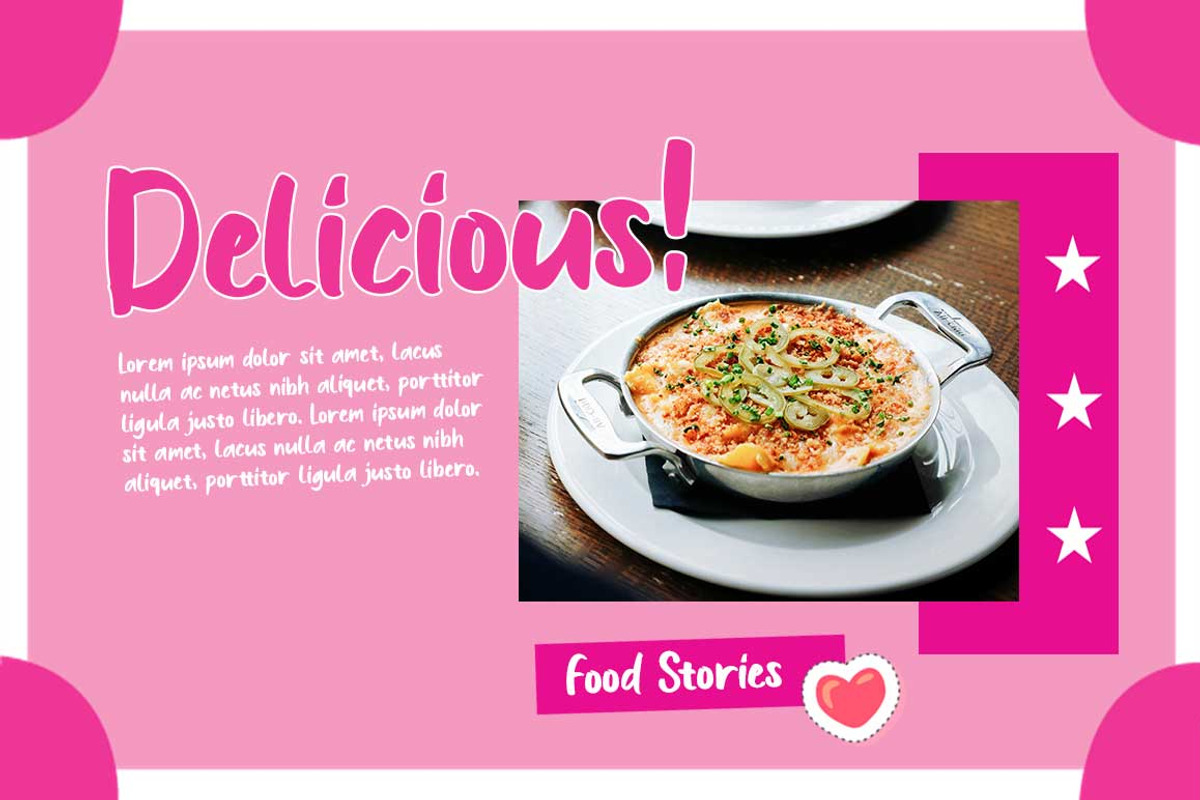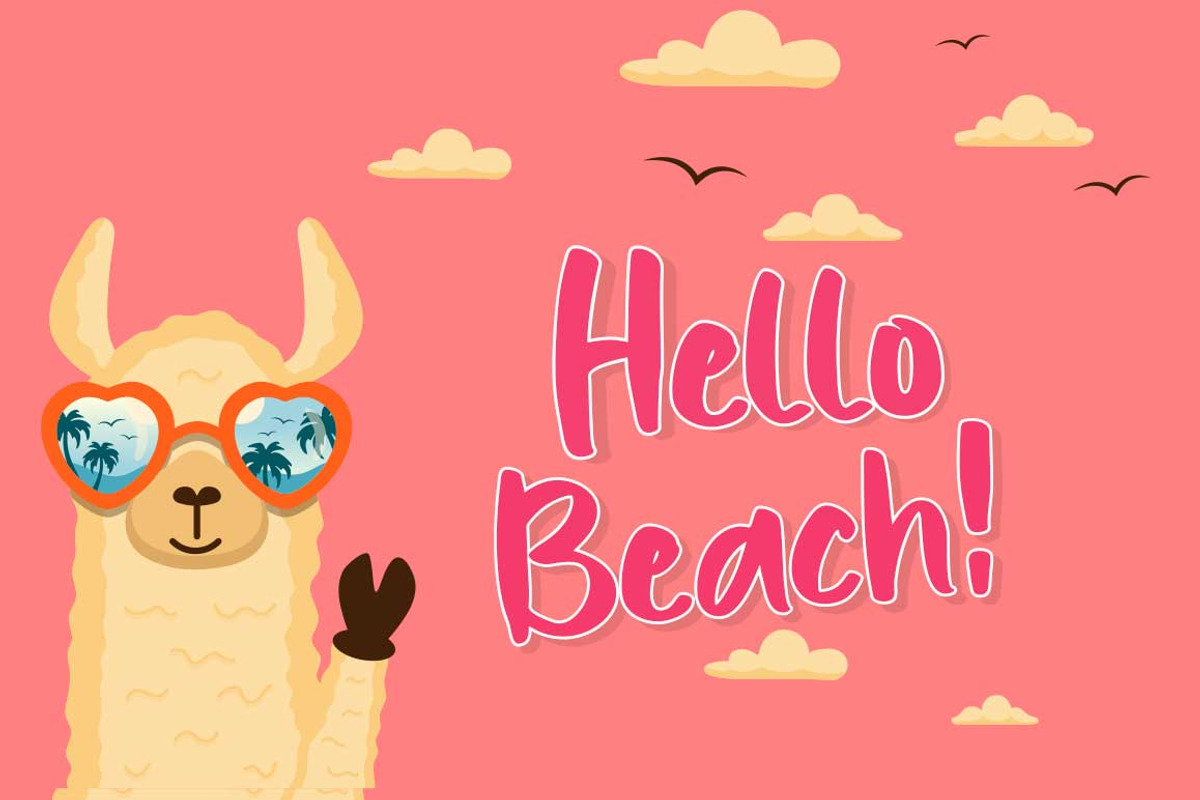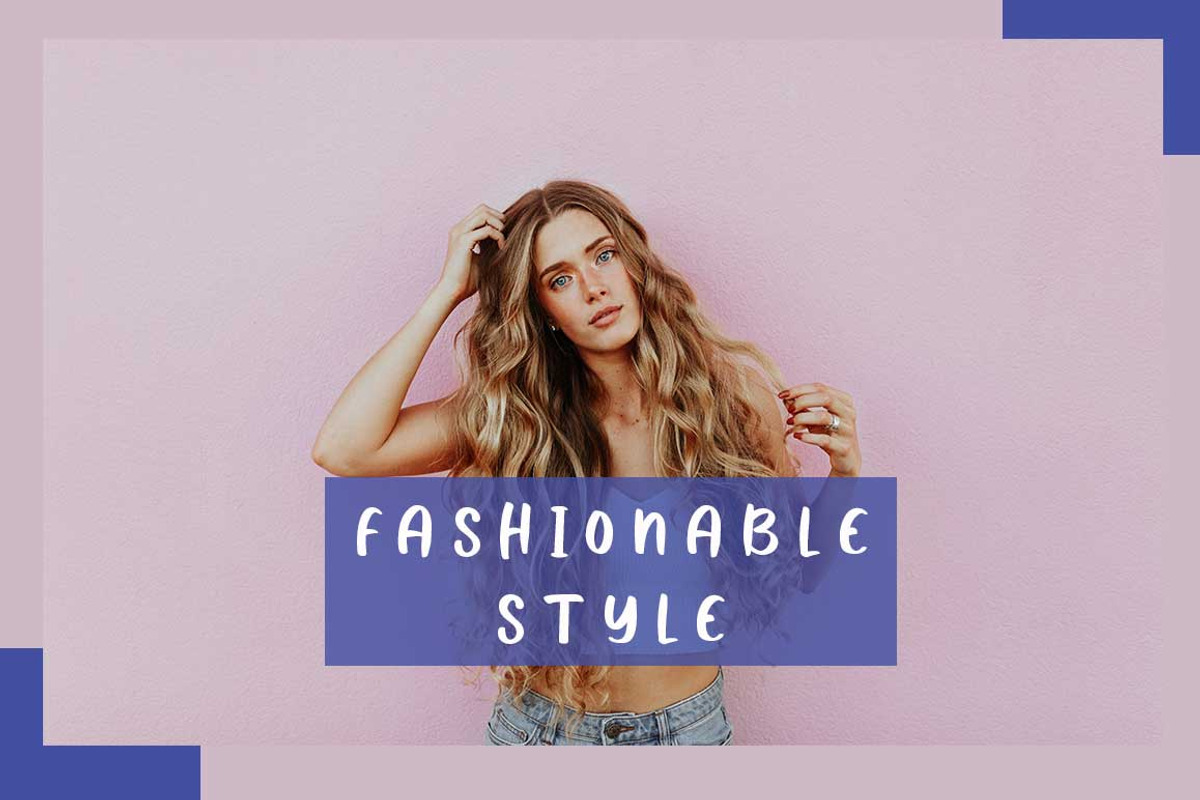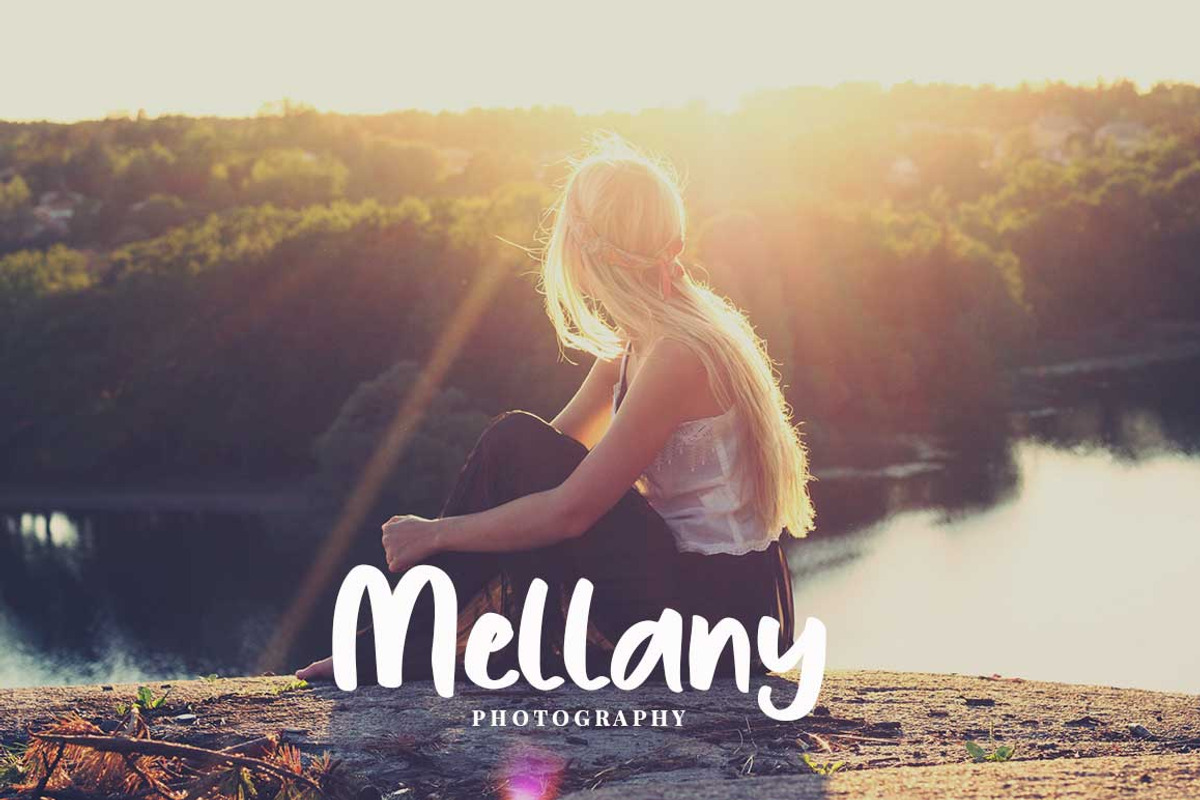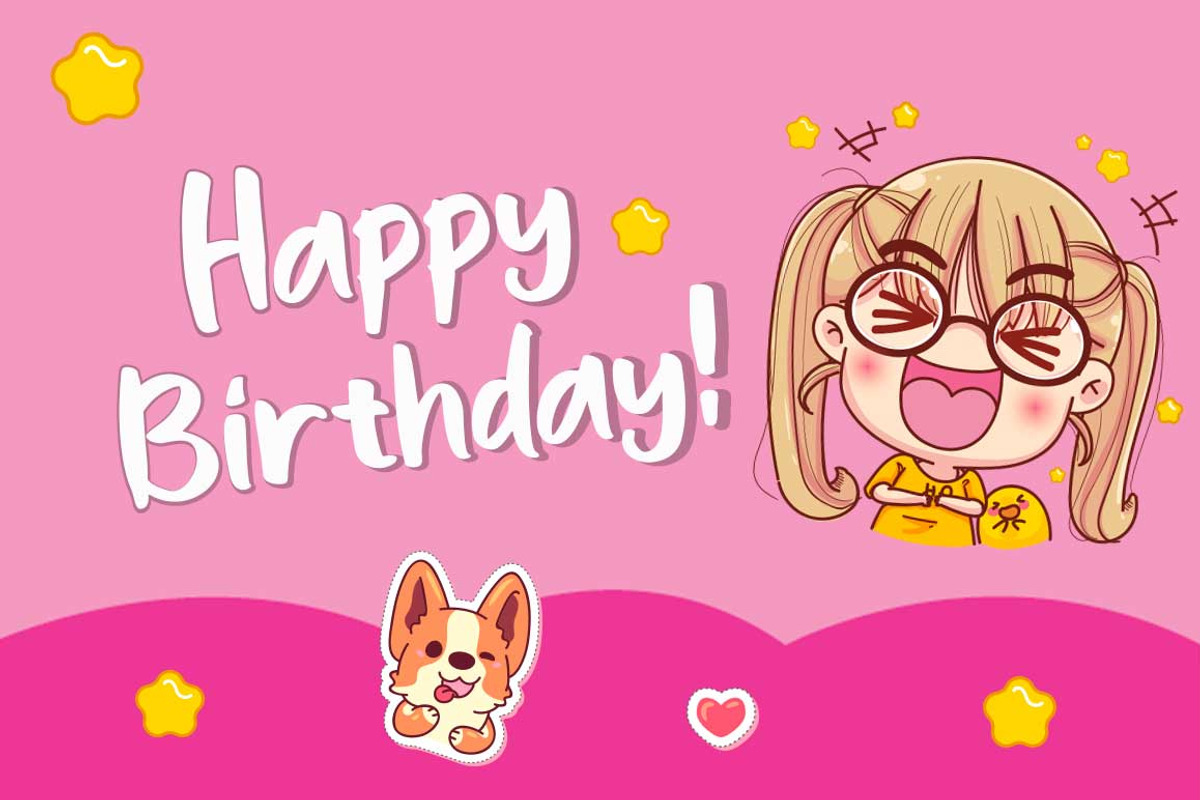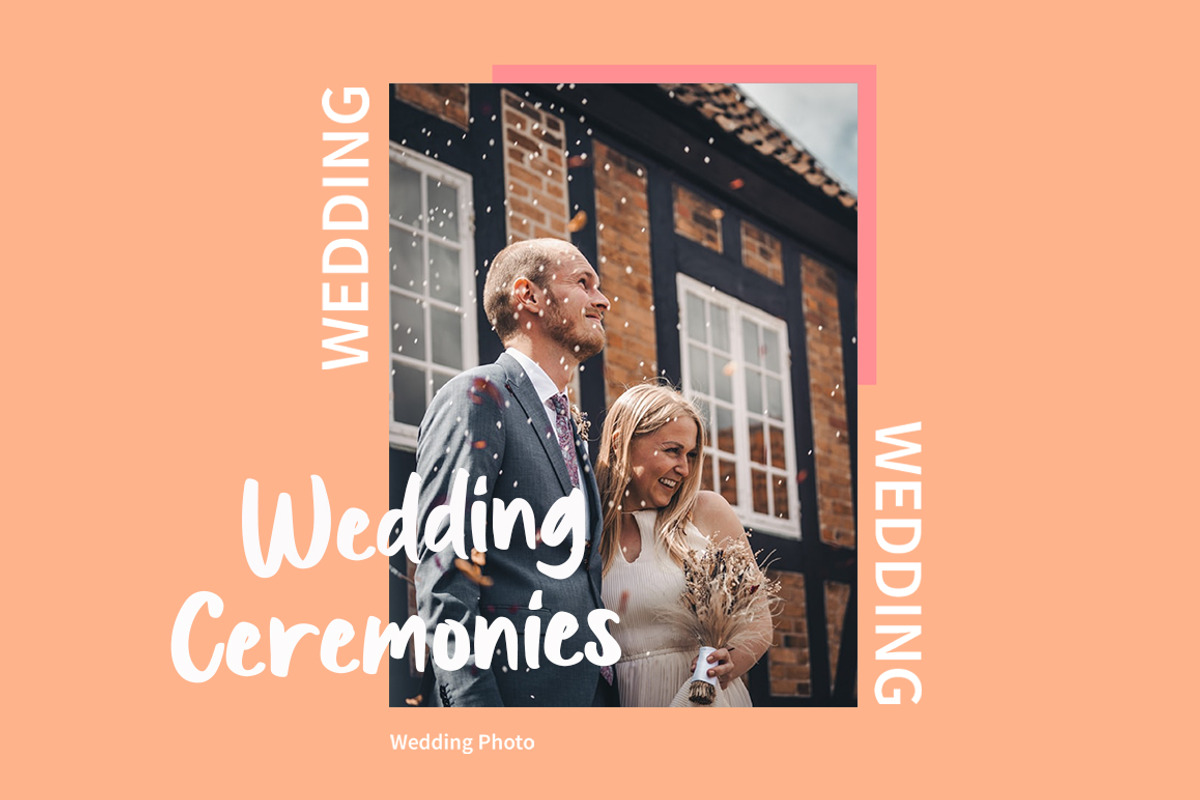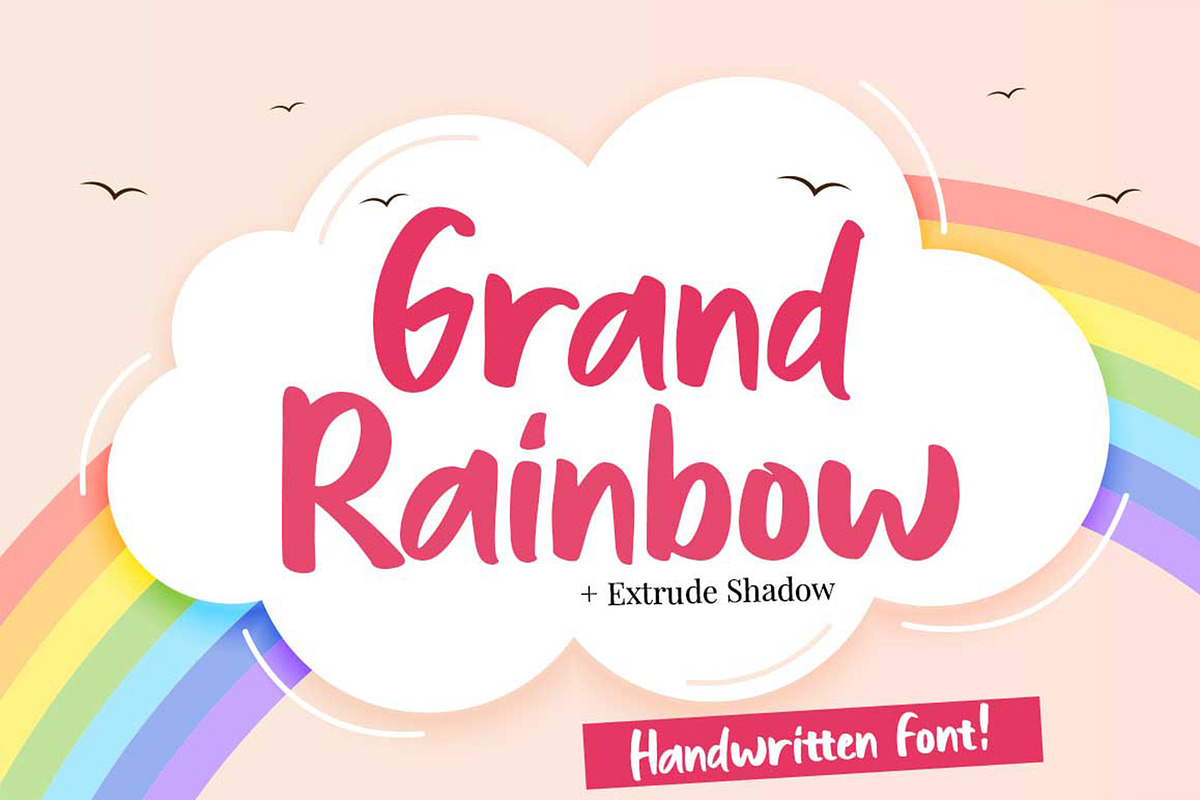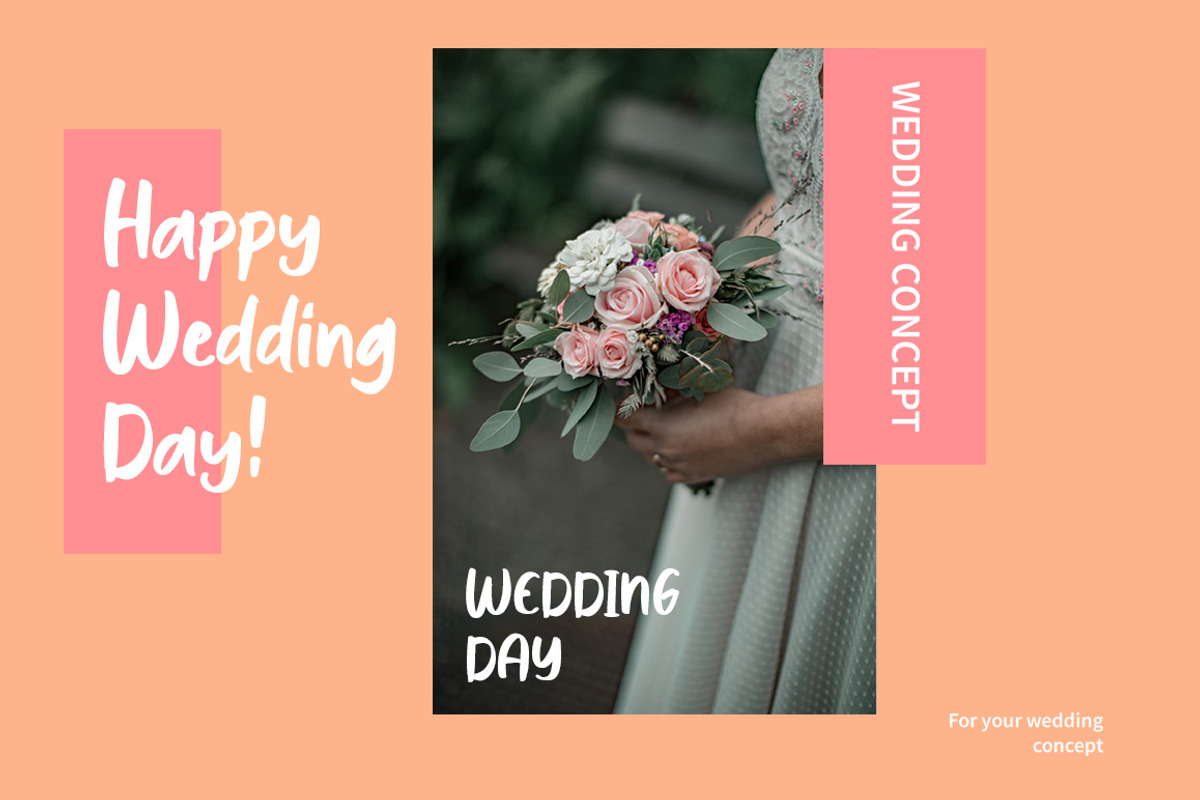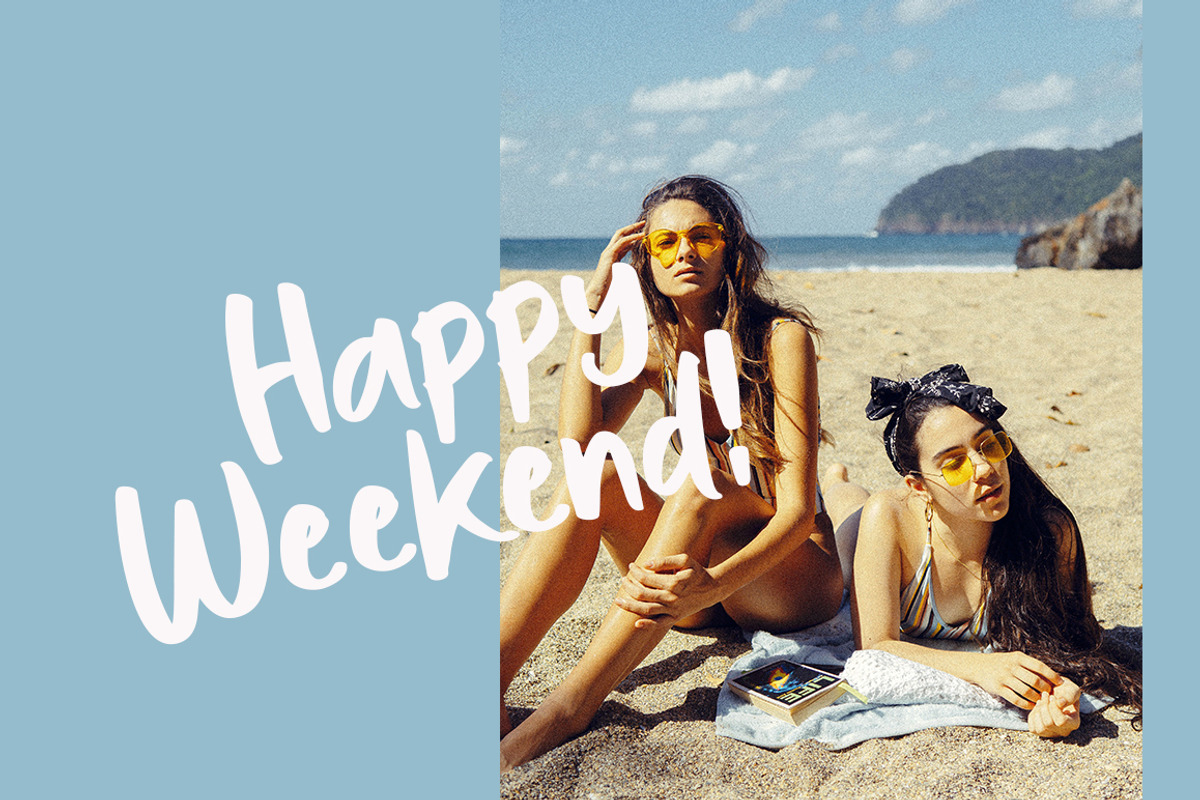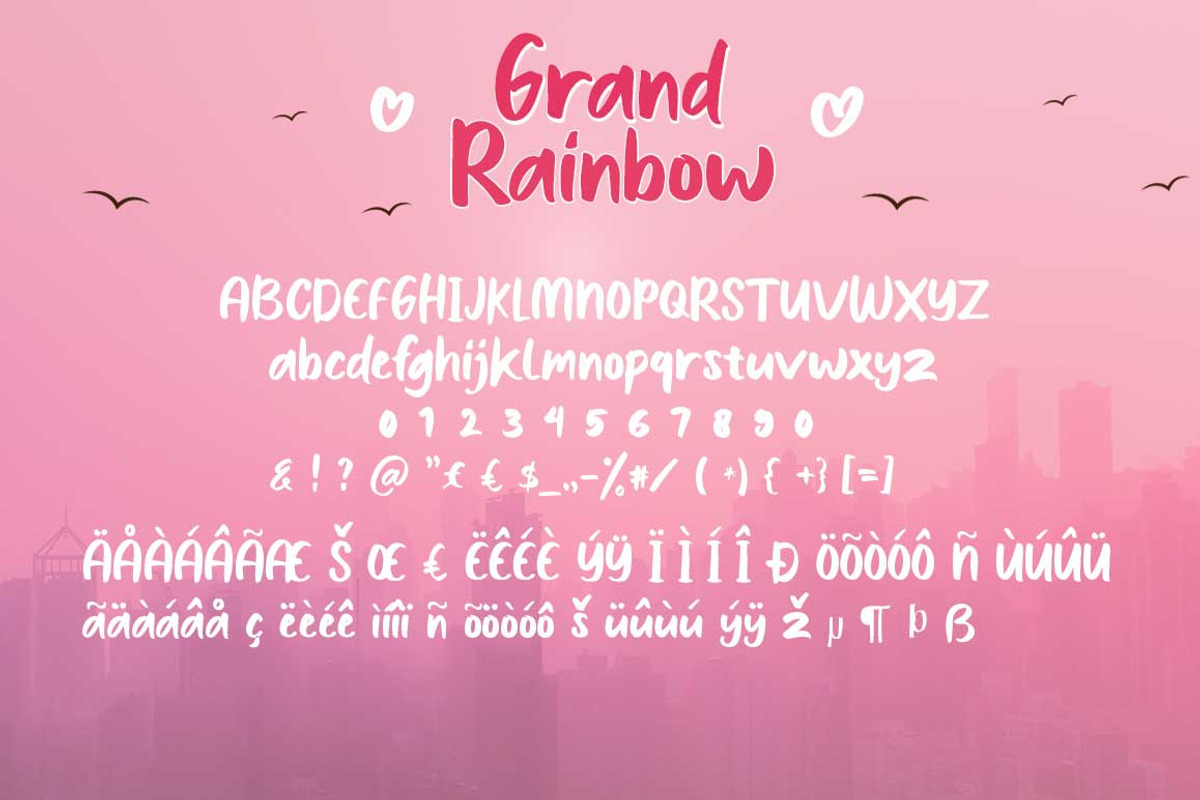
Grand Rainbow + Extrude Shadow
Grand Rainbow Script a beautiful modern calligraphy font with Extrude Shadow Style. Comes with 2 layered font handwritten, sophisticated flows. Grand Rainbow Script offers beautiful typographic harmony for a diversity of design projects, signature, stationery, logo, typography quotes, branding, wedding designs, social media posts, advertisements & product designs.